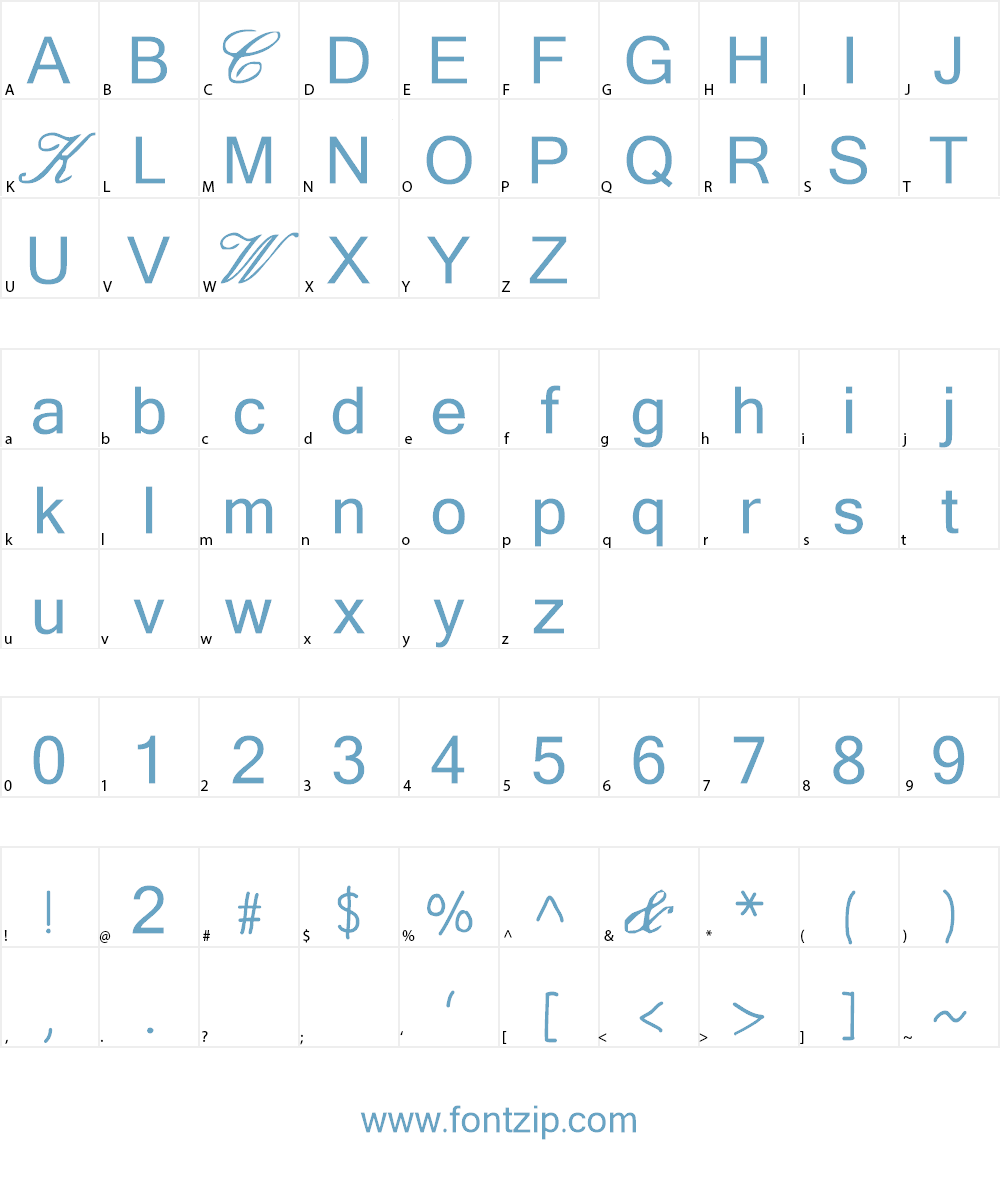
This is a work in progress please check back later or on
NOTE: This font bears no resemblance to the font used on the official Royal Wedding Invitations this can be found here it's debatable if this is either Monotype Perpetua Italic OR the Hermann Zapf's Renaissance Antiqua No.2
you decide.